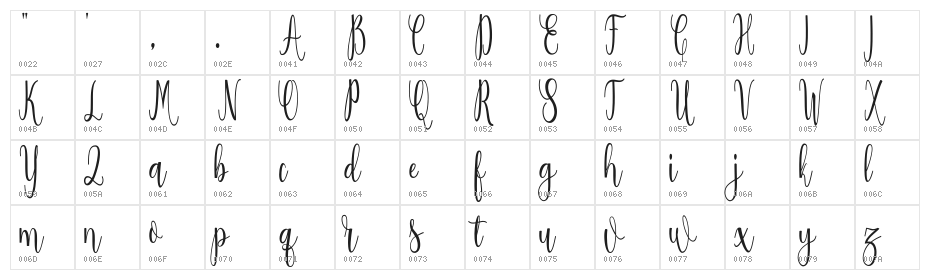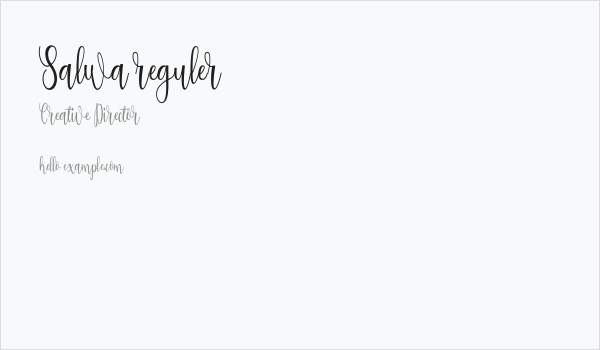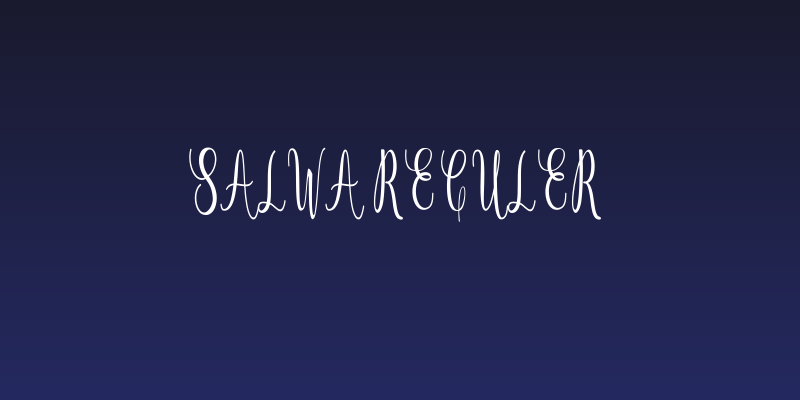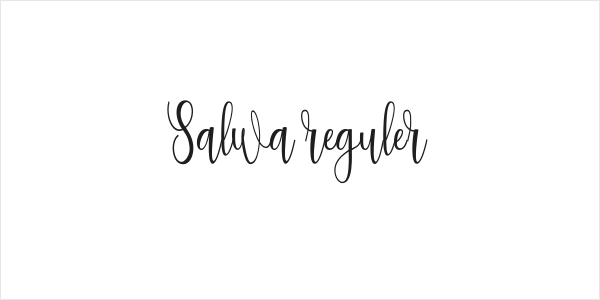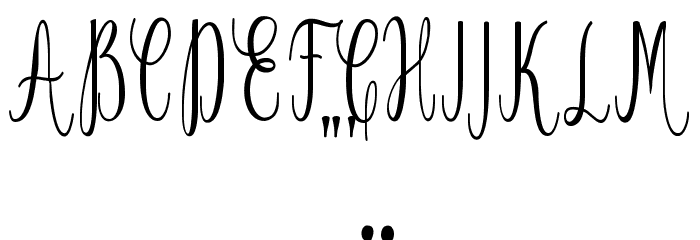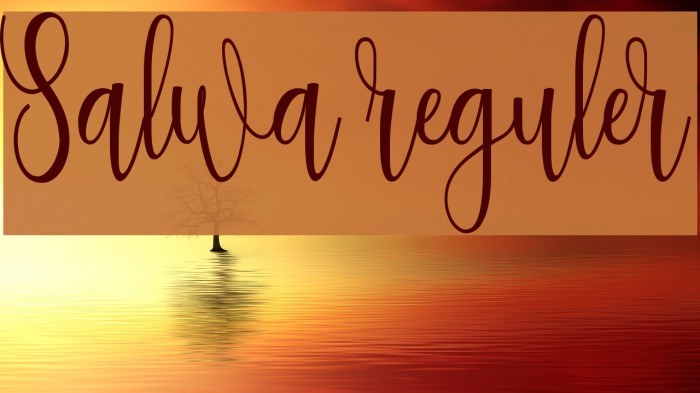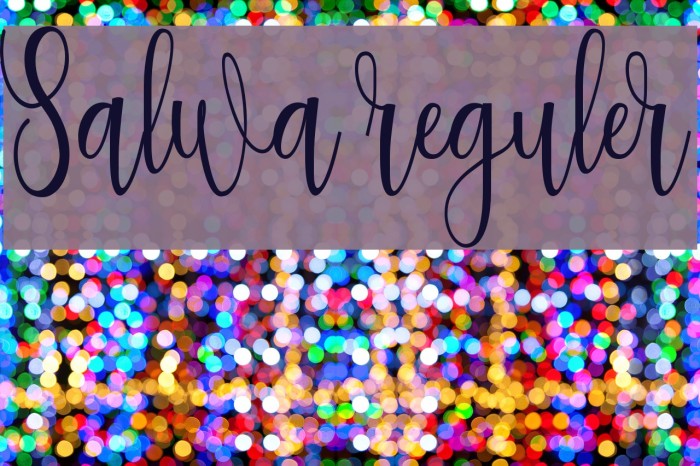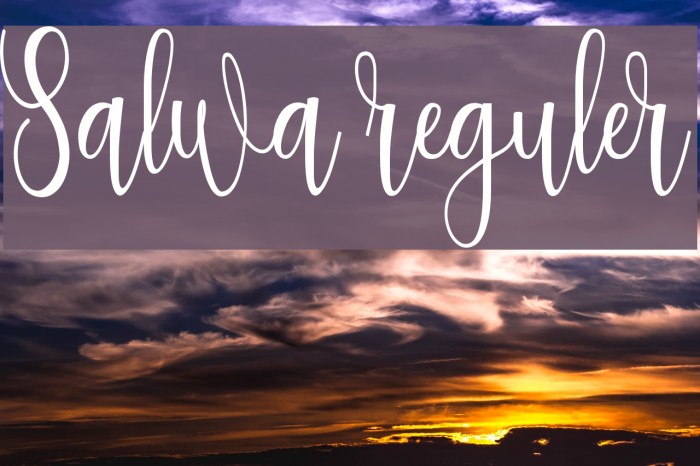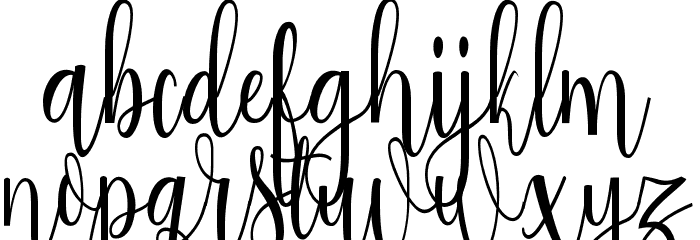
Salwa reguler Font
Salwa reguler Description
This font features an elegant and flowing script style, characterized by its tall, slender letterforms and intricate loops. The uppercase letters are particularly ornate, with extended ascenders and descenders that create a sense of movement and grace. The lowercase letters maintain a consistent style, with smooth curves and a slight slant that adds to the overall fluidity. The numerals and special characters are designed to match the script's aesthetic, ensuring a cohesive look across all text. This font is ideal for projects that require a touch of sophistication and elegance.